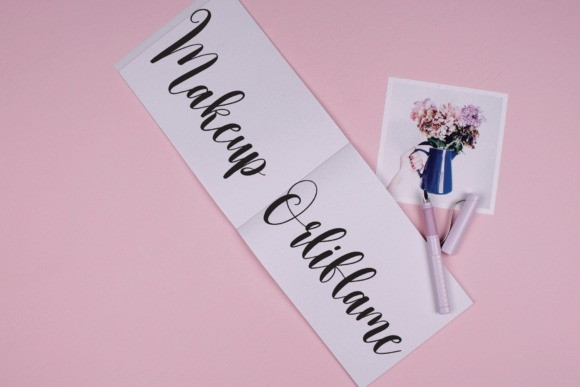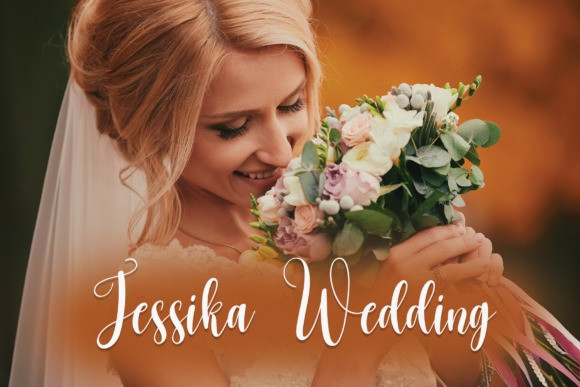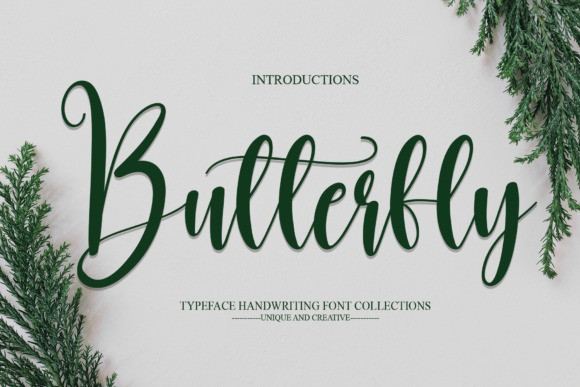
Butterfly Typeface
Butterfly Typeface,  is a fine and ageless handwritten font. It is the ideal option for developing elevated logos, branding and quotes. Each letter has a chic and beautiful touch, which will make your design more beautiful than ever!